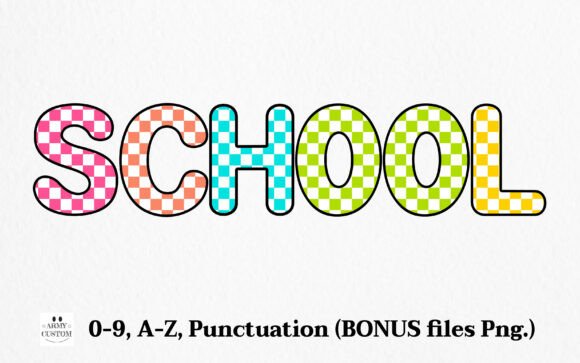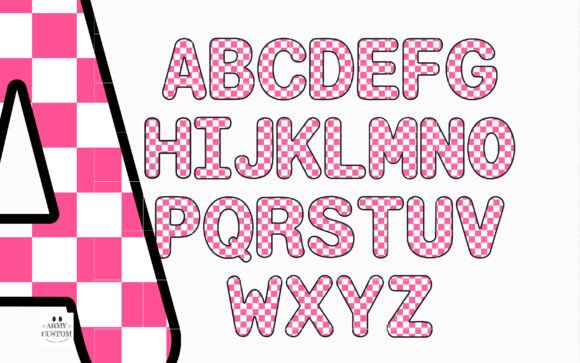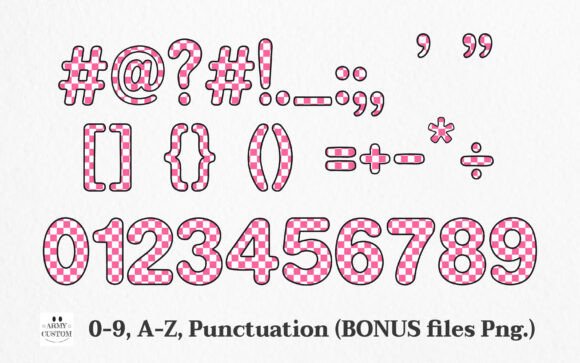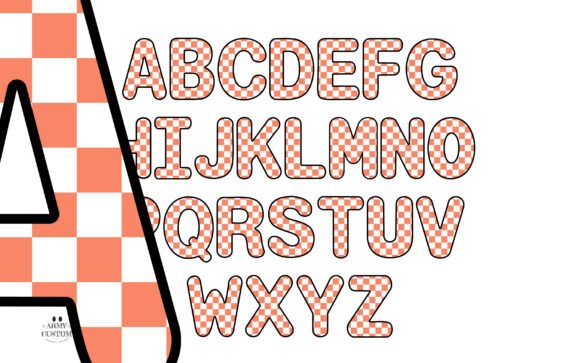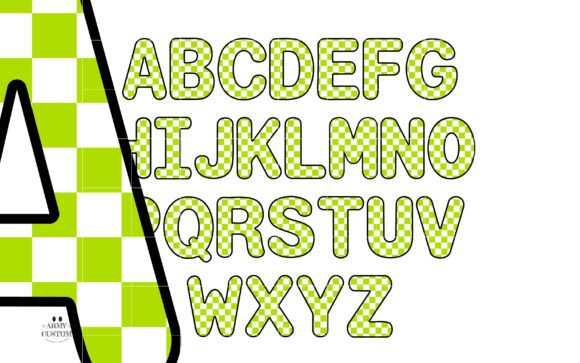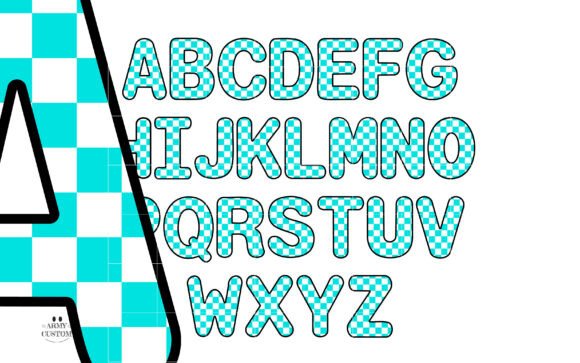
Introducing AM School Font: The Perfect Blend of Fun and Legibility for Educational Designs
Are you a teacher, educator, or designer looking for a font that can add a playful touch to your educational materials, classroom decor, or school-themed merchandise? Look no further than the AM School Font bundle! This friendly and bold display font is specifically designed to balance high legibility with a fun, academic energy, making it perfect for a wide range of applications.
What Makes AM School Font So Special?
The AM School Font bundle is characterized by its thick, rounded “bubble” silhouettes and playful checkered patterns. These distinctive features give the font a unique and eye-catching appearance that’s sure to grab attention. Whether you’re creating educational materials, teacher appreciation gifts, classroom bulletin boards, or creative school-themed merchandise, this font is sure to add a touch of personality and whimsy to your designs.
Key Features of AM School Font
- High Legibility: Despite its playful appearance, the AM School Font is designed to be highly legible, making it perfect for use in educational materials, headings, and titles.
- Bold and Friendly: The font’s thick, rounded silhouettes and checkered patterns give it a bold and friendly appearance that’s sure to appeal to students and educators alike.
Use Cases for AM School Font
The AM School Font bundle is incredibly versatile, and can be used in a wide range of applications, including:
- Educational Materials: Use the font to create engaging and interactive educational materials, such as worksheets, activity sheets, and educational posters.
- Teacher Appreciation Gifts: Create personalized teacher appreciation gifts, such as mugs, tote bags, and plaques, using the AM School Font.
- Classroom Bulletin Boards: Use the font to create eye-catching classroom bulletin boards, headings, and titles that will grab students’ attention.
- School-Themed Merchandise: Create a range of school-themed merchandise, such as t-shirts, stickers, and water bottles, using the AM School Font.
Tips for Using AM School Font
Here are a few tips for getting the most out of the AM School Font:
- Experiment with Colors: The color version of the font is a great way to add an extra pop of color to your designs. Experiment with different color combinations to find the perfect look for your project.
- Mix and Match: Don’t be afraid to mix and match the AM School Font with other fonts to create a unique and eye-catching look.
- Use it for Headings: The AM School Font is perfect for use in headings and titles. Use it to create bold and eye-catching headings that will grab attention.